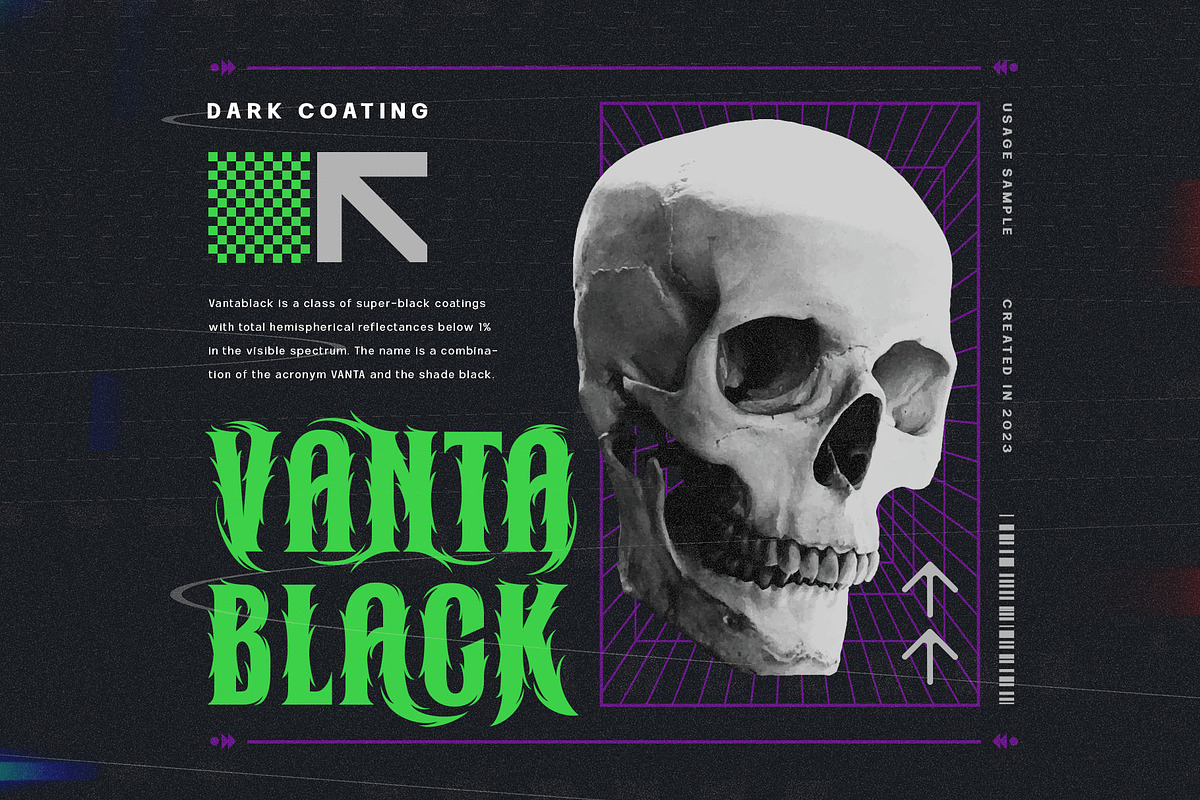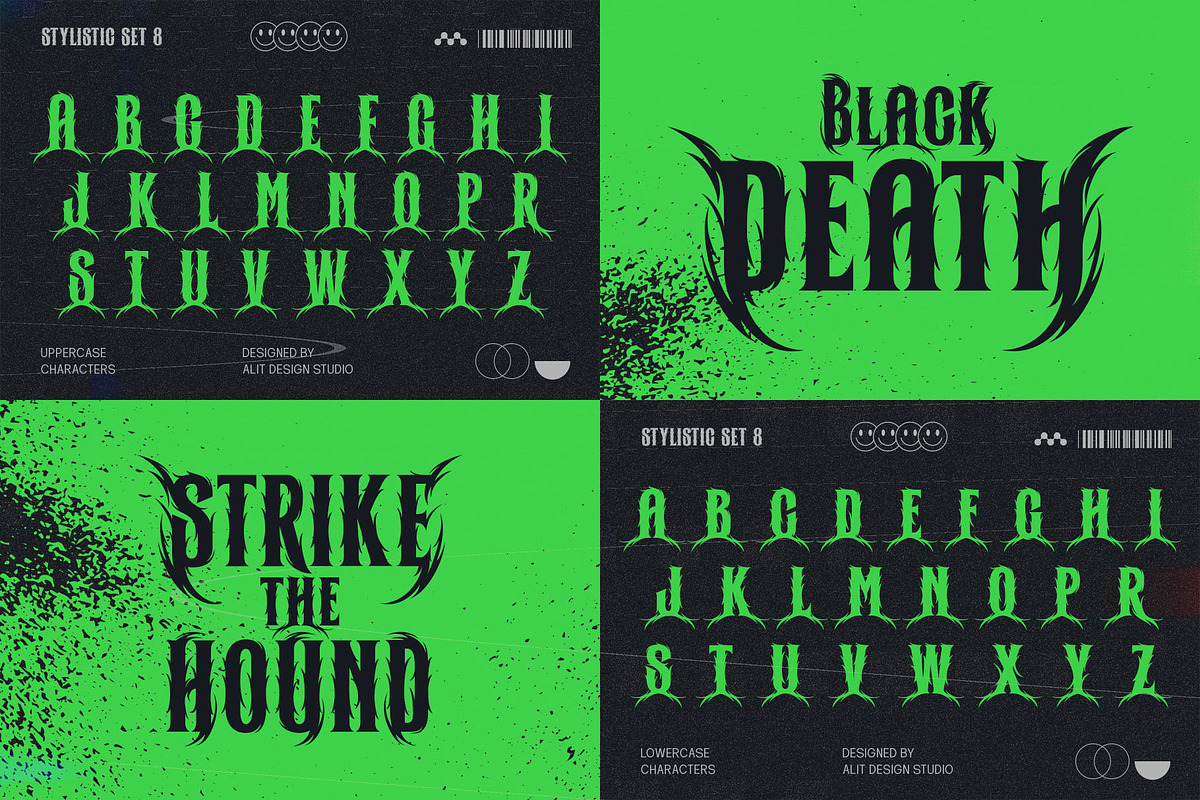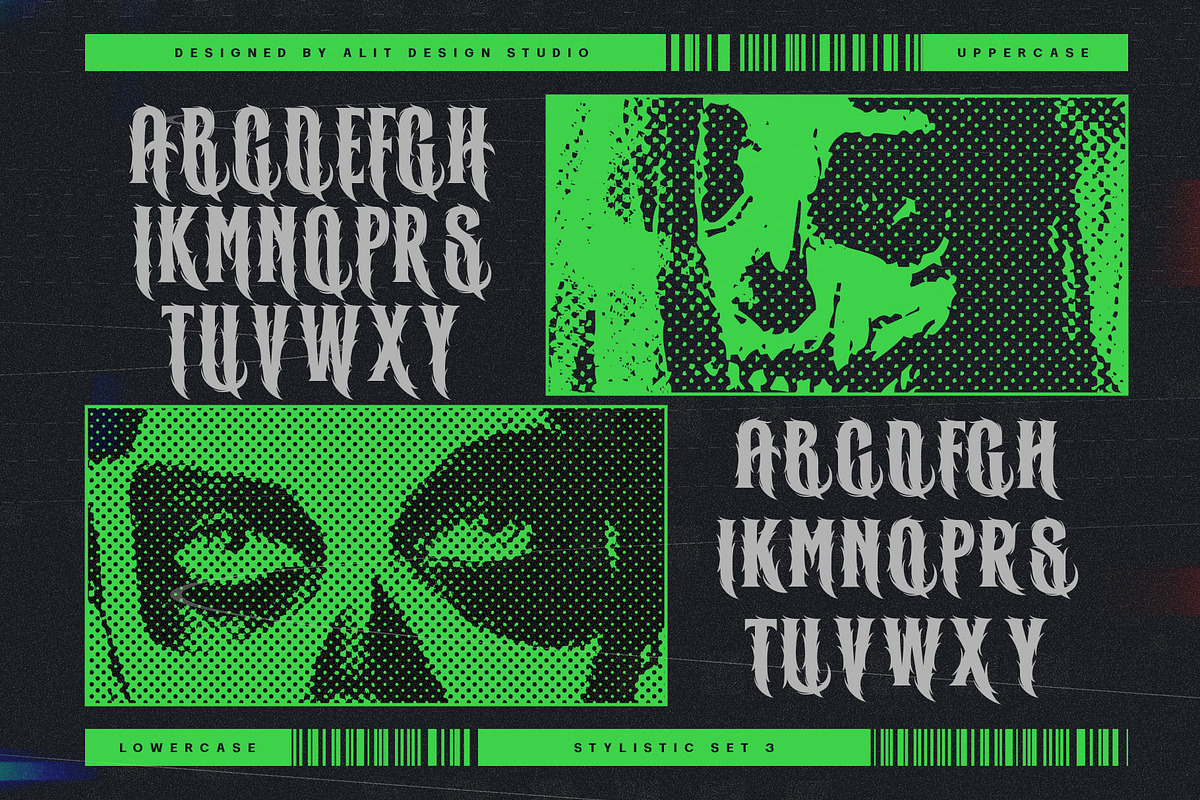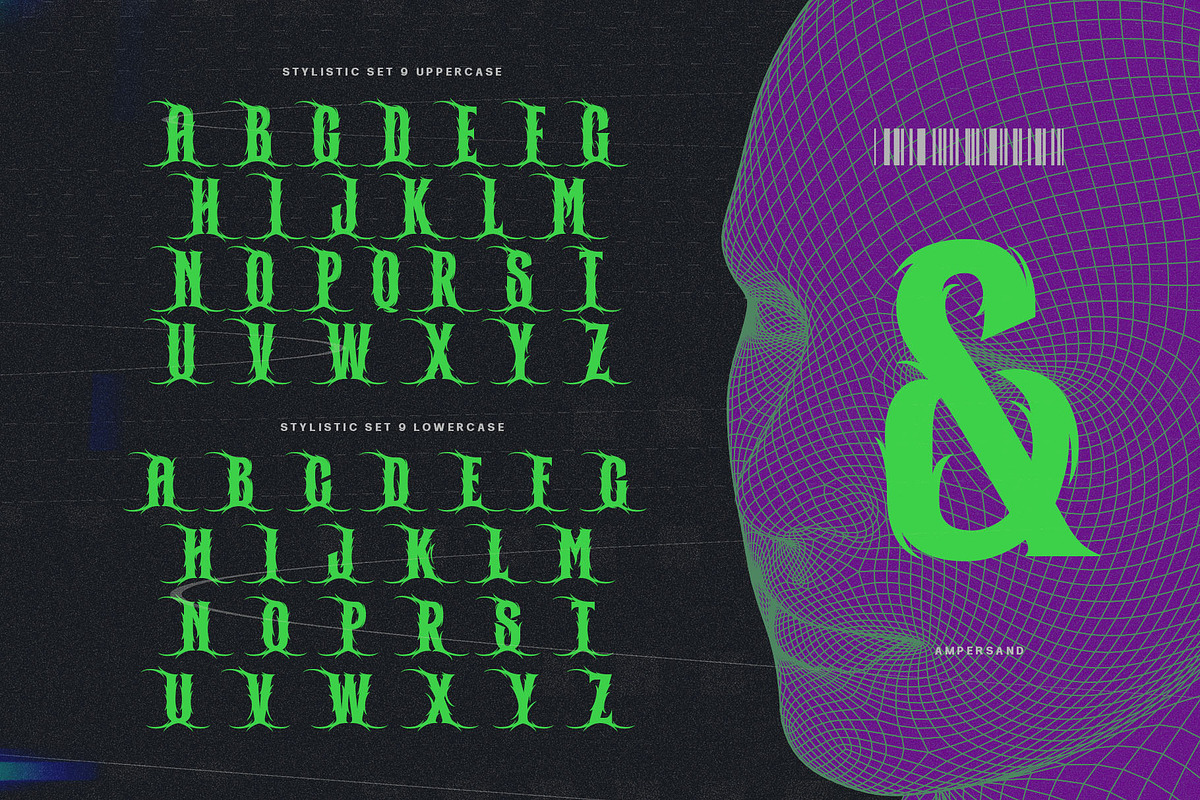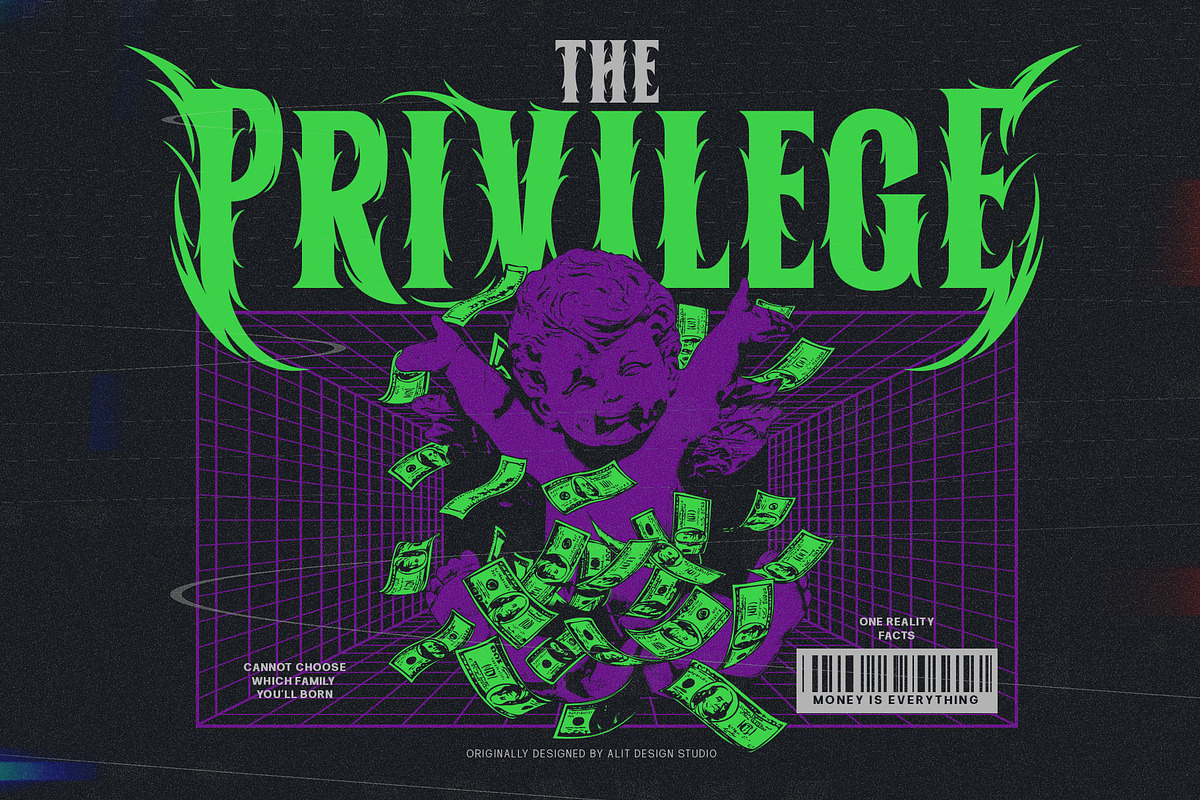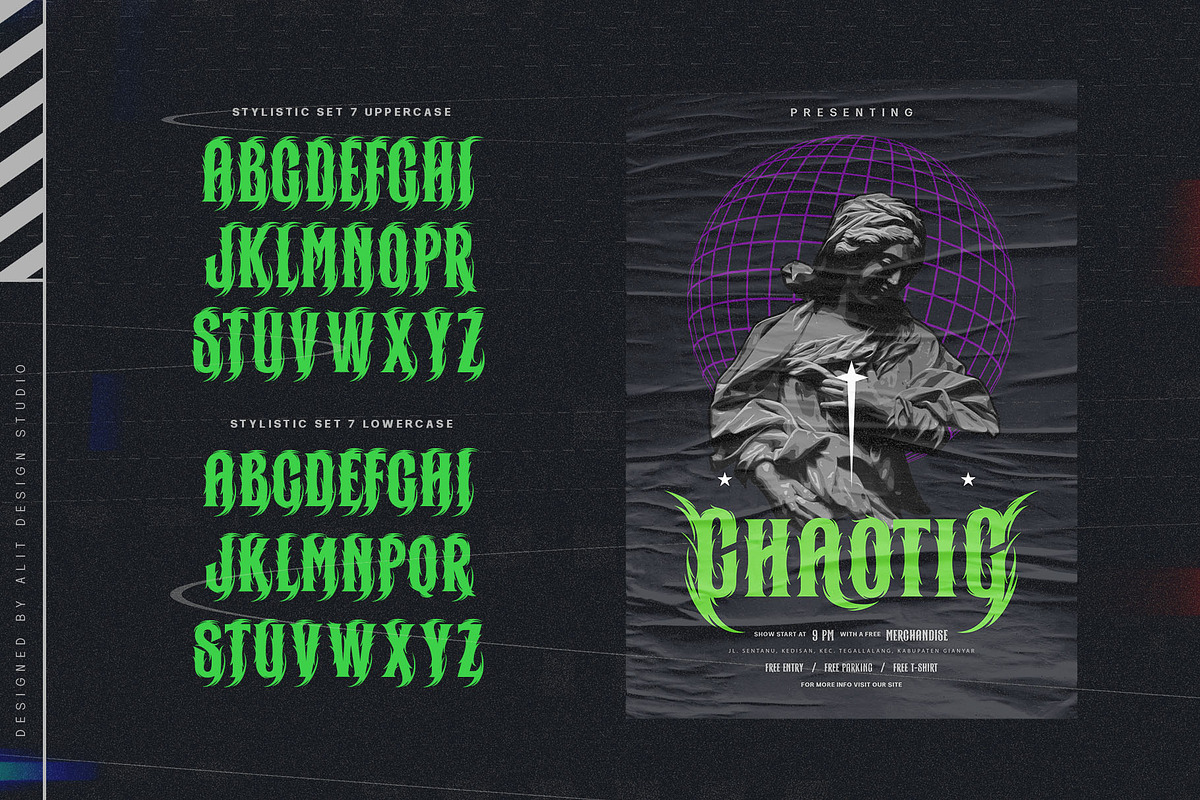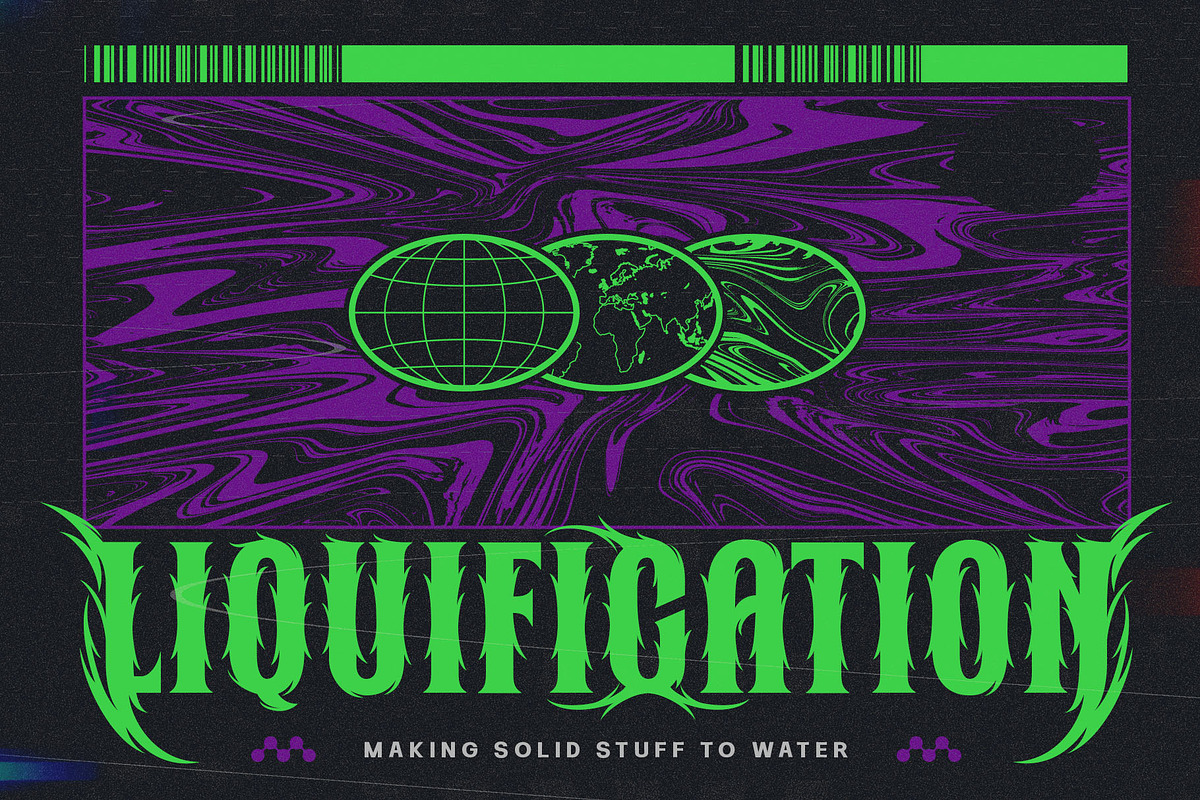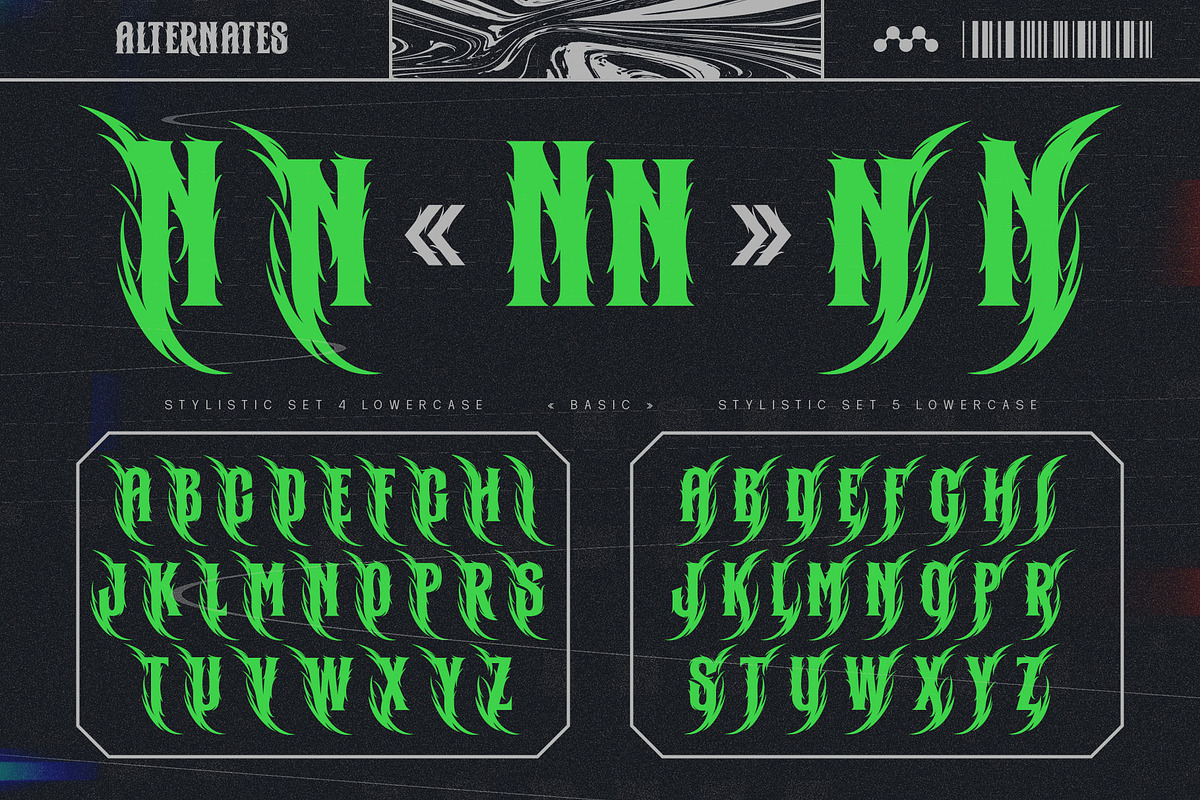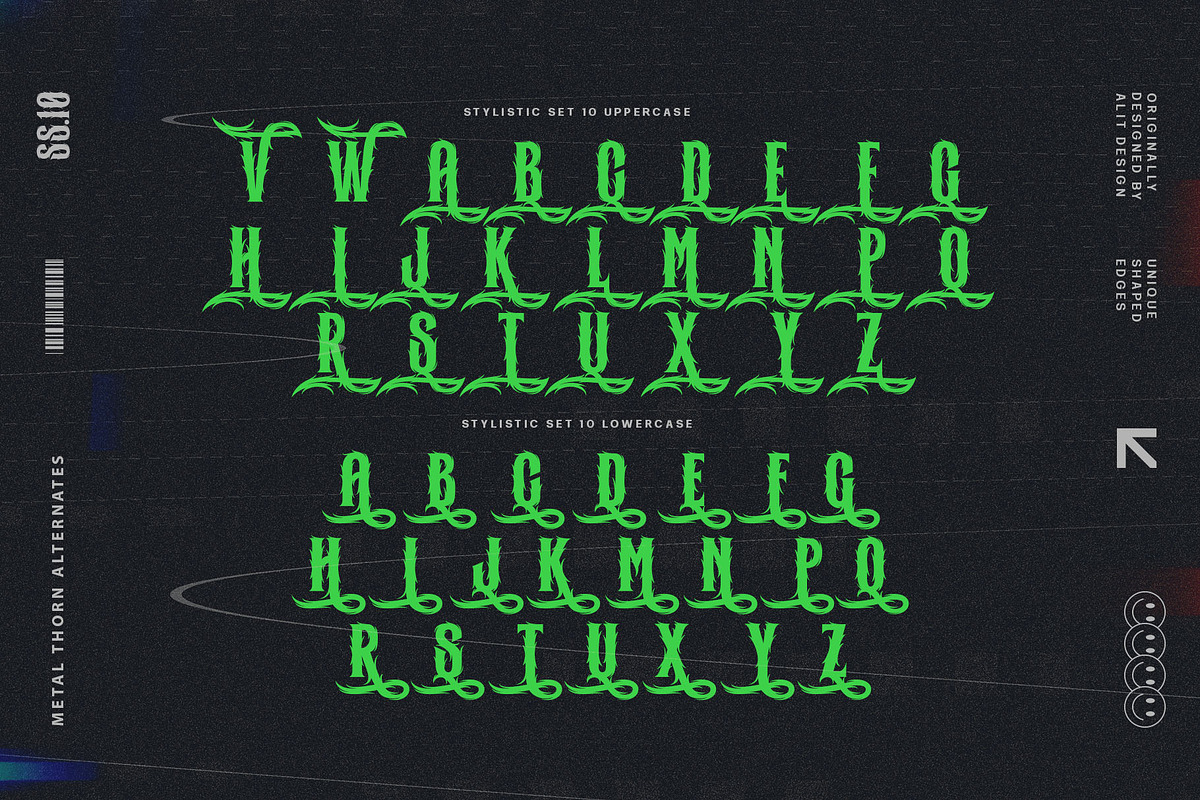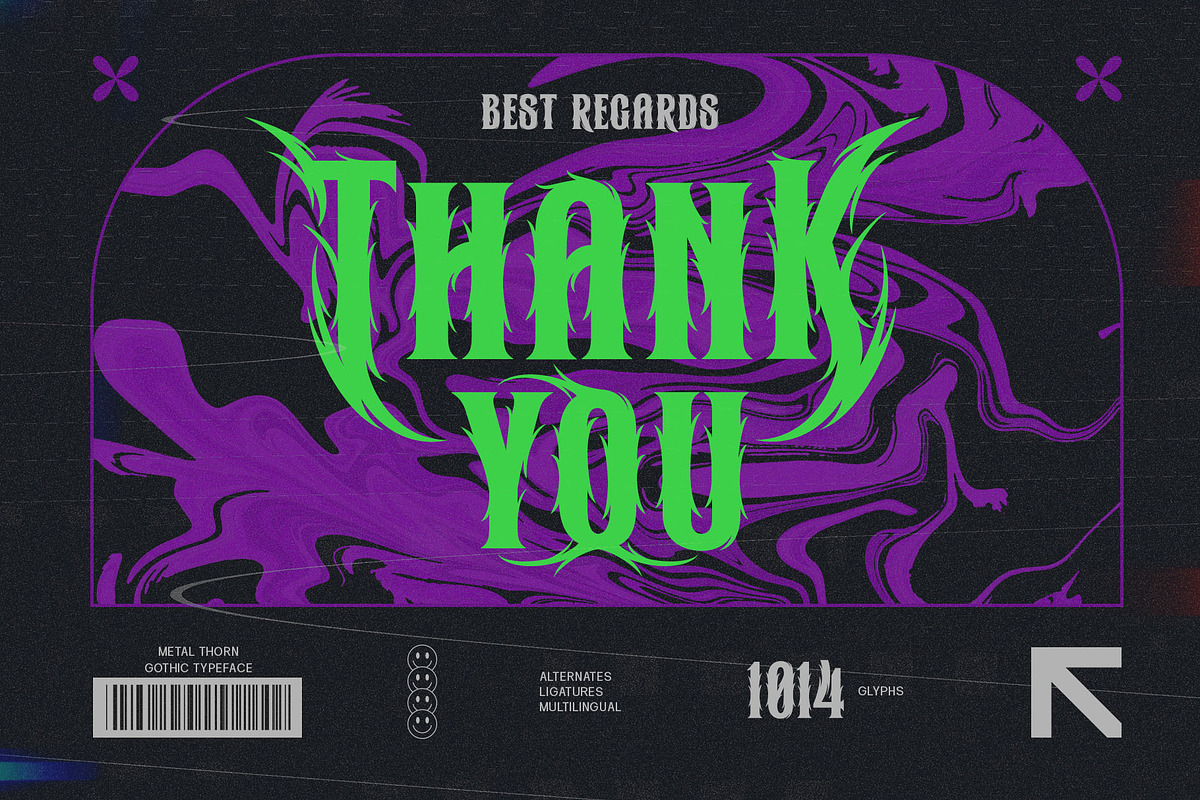
Metal Thorn Typeface
Introducing "Metal Thorn" – a font that seamlessly blends the raw power of metal with the edgy intensity of thorns, all wrapped up in a cutting-edge cyber aesthetic. This font is a manifestation of metal brutalism, designed to make a bold statement with its fierce and avant-garde personality.
Metal Brutalism Concept: Inspired by the industrial strength and unapologetic nature of metal, Metal Thorn embodies the essence of brutalism, creating a visual impact that is both commanding and unyielding.
Fierce Thorn Design: The thorn elements within the font give it a sharp and aggressive edge, adding an extra layer of intensity. Each character is crafted with precision, making Metal Thorn a formidable choice for those who seek to convey strength and determination through typography.
Modern Cyber Feel: Infusing a touch of cyber aesthetics, Metal Thorn transcends traditional boundaries. Its sleek and futuristic design elements make it perfect for projects that demand a contemporary, cutting-edge vibe.
Extensive Glyph Set: With a generous set of 1014 characters, Metal Thorn ensures versatility and flexibility in your design projects. From standard Latin characters to multilingual support, this font caters to a wide range of creative needs.
Alternate and Ligature Support: Unlock even more design possibilities with alternate characters and ligatures. Metal Thorn allows you to experiment with different letterforms, providing options for a customized and dynamic typographic experience.
Multilingual Support: Metal Thorn breaks language barriers, offering comprehensive multilingual support. Communicate your message globally with ease, as this font accommodates a diverse range of languages.
Whether you're working on a poster, branding, digital art, or any other creative endeavor, Metal Thorn is your go-to choice for a font that demands attention. Elevate your designs with the raw energy of metal, the fierceness of thorns, and the modern sophistication of cyber aesthetics – all encapsulated in the captivating Metal Thorn font.